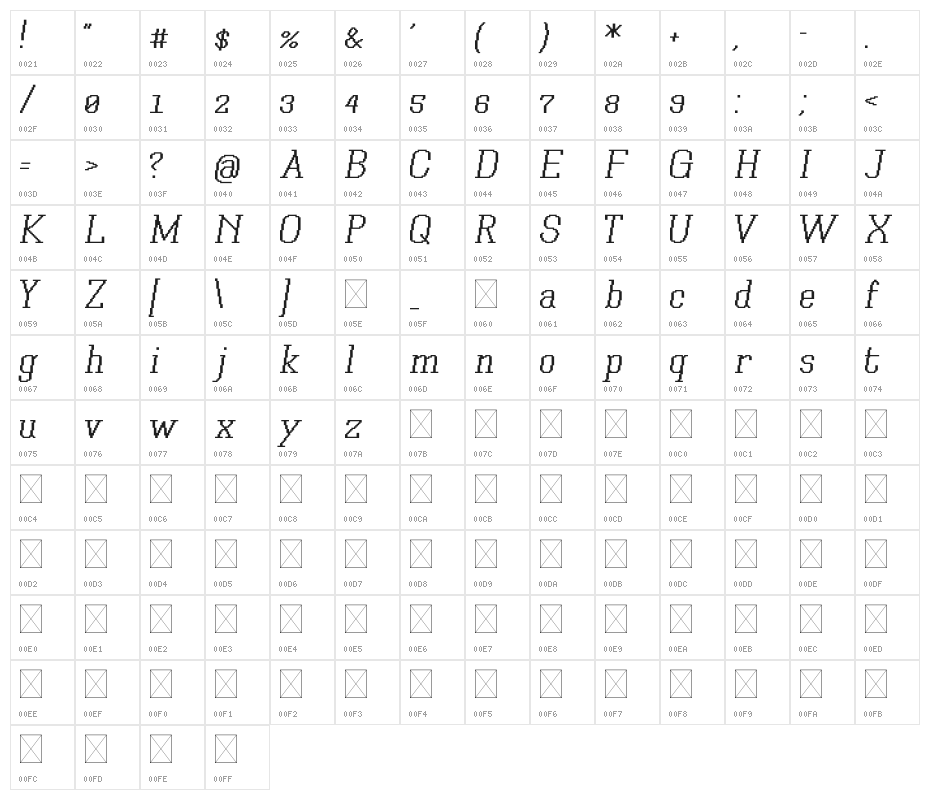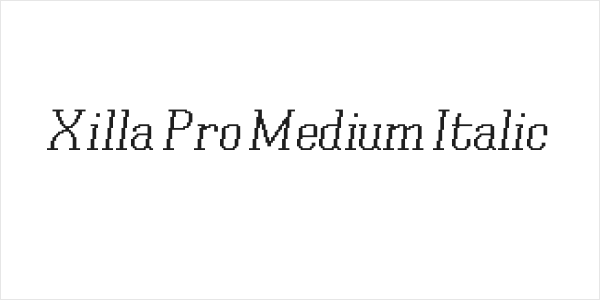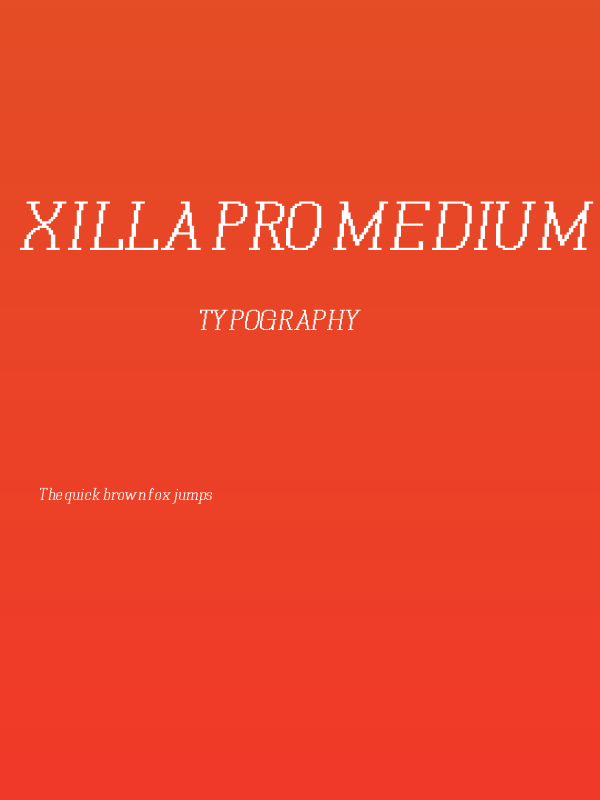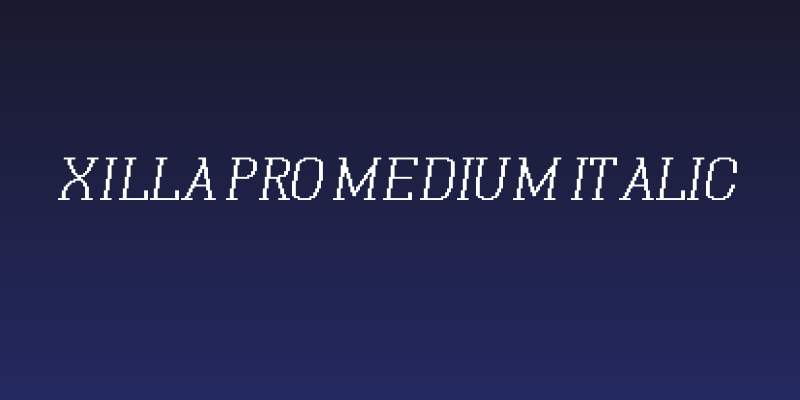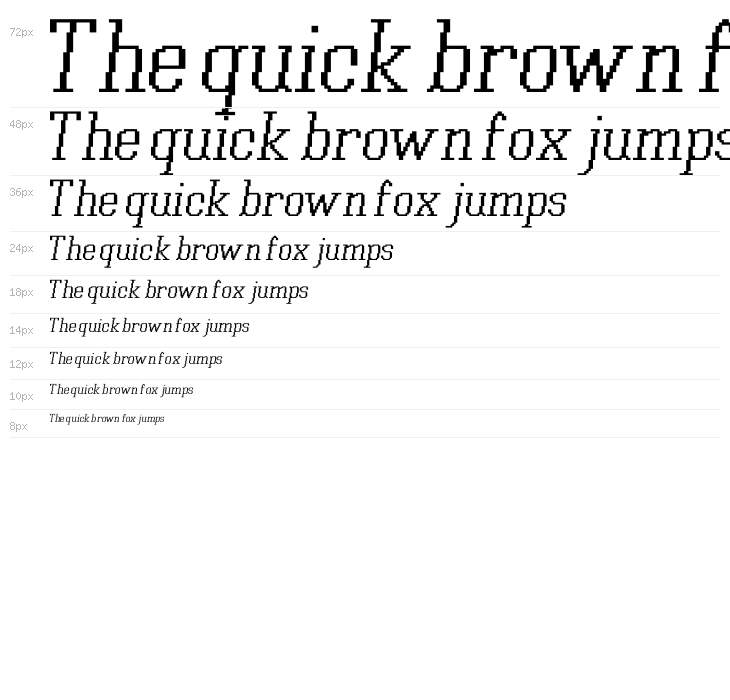
Xilla Pro Medium Italic Font
Xilla Pro Medium Italic Description
This font exhibits a modern and sleek italic style with a medium weight, offering a balanced and professional appearance. The characters are slightly slanted, providing a dynamic and elegant feel. The uppercase and lowercase letters maintain a consistent style, with clean lines and a subtle curvature that enhances readability. The numerals are well-proportioned, aligning seamlessly with the alphabetic characters. Special characters are distinct and clear, ensuring versatility in various design contexts. The overall design is suitable for conveying sophistication and modernity.
| Proposed Projects | Ideal for branding, editorial design, and digital interfaces where a modern and professional look is desired. |